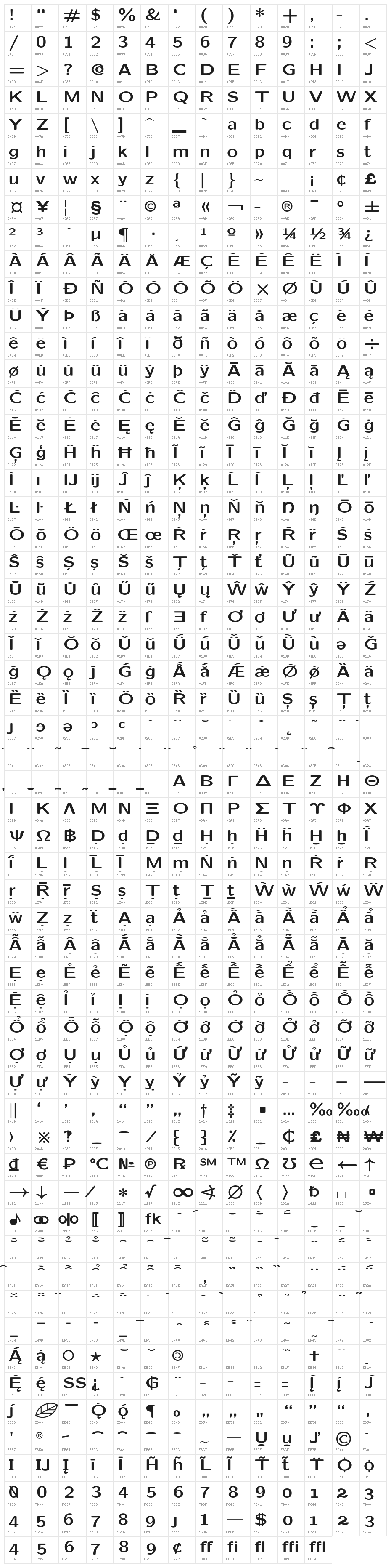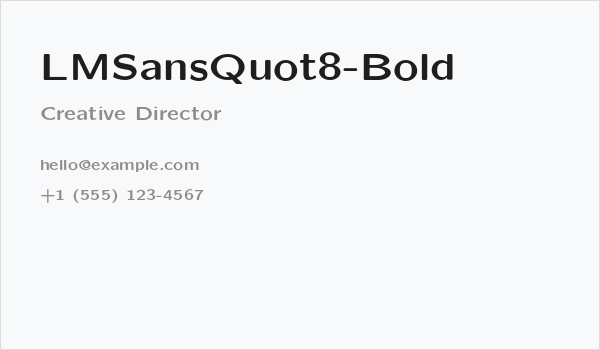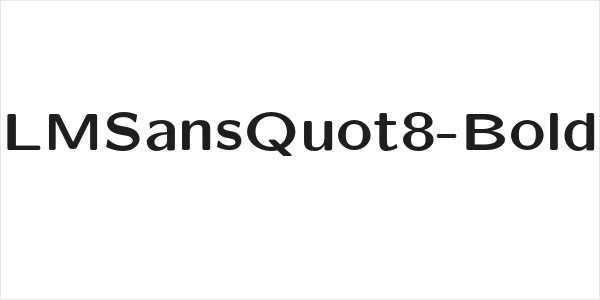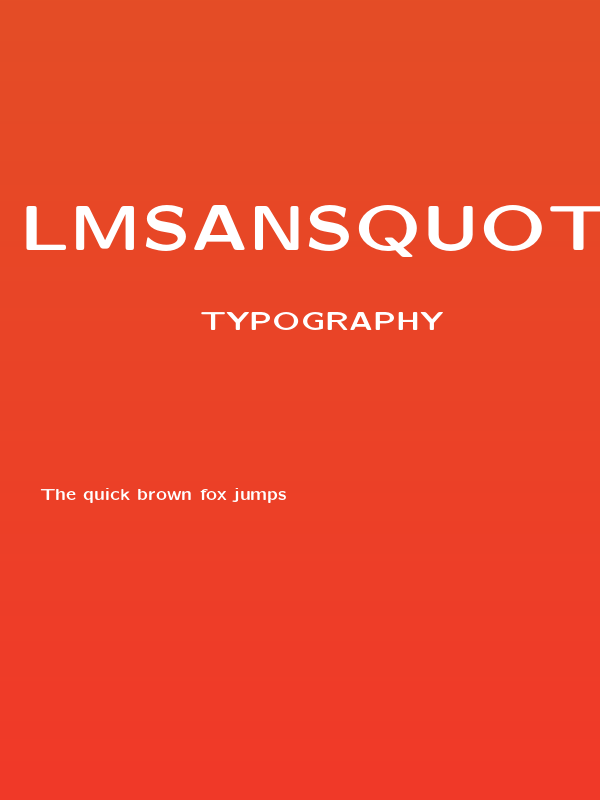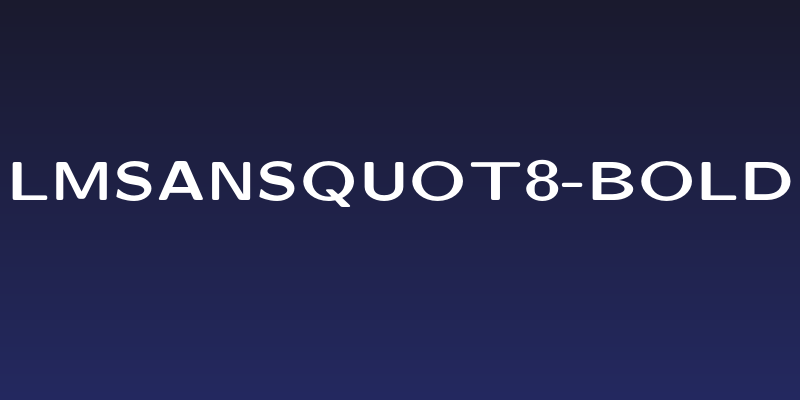
LMSansQuot8-Bold Font
LMSansQuot8-Bold Description
This typeface features a clean and modern sans-serif design, characterized by its bold weight and uniform stroke width. The characters are well-proportioned, offering a balanced and harmonious appearance. The uppercase letters are slightly taller than the lowercase, providing a clear distinction between the two. The numerals are easily readable, with consistent height and width, making them suitable for various applications. Special characters are designed with simplicity in mind, maintaining the overall aesthetic of the typeface. The font's straightforward and uncluttered style makes it versatile for both digital and print media.